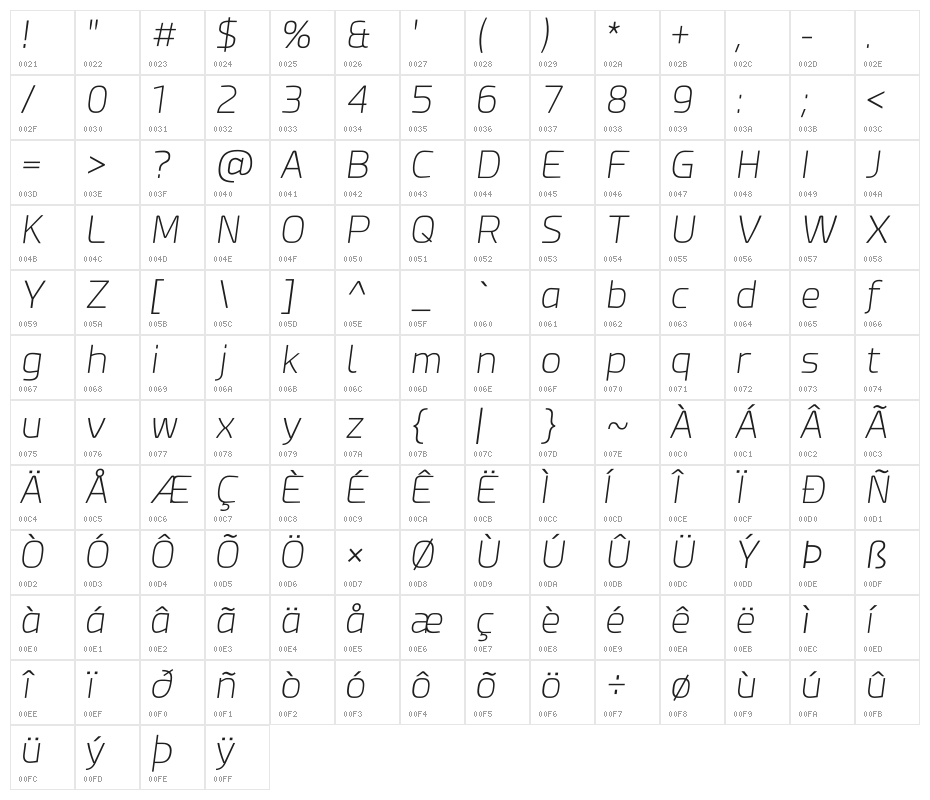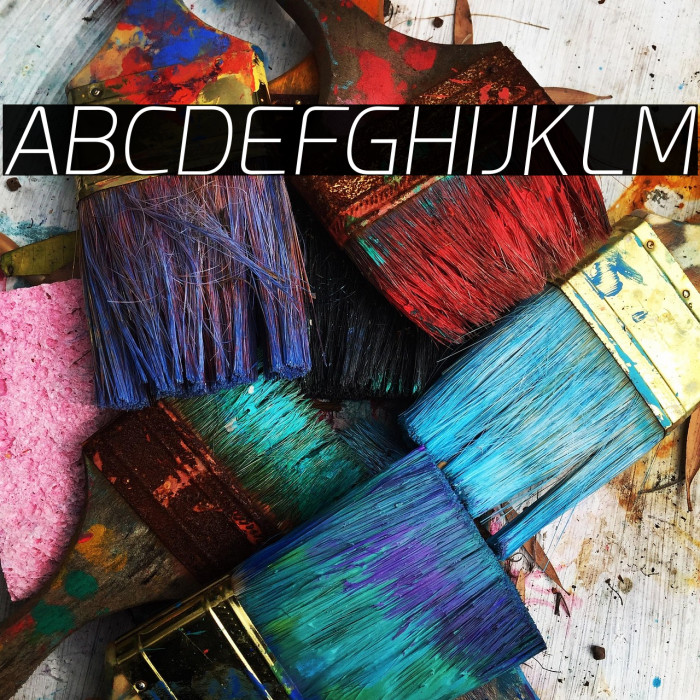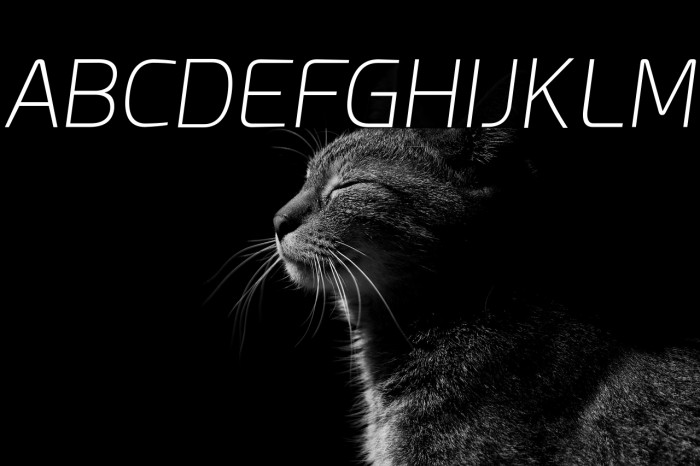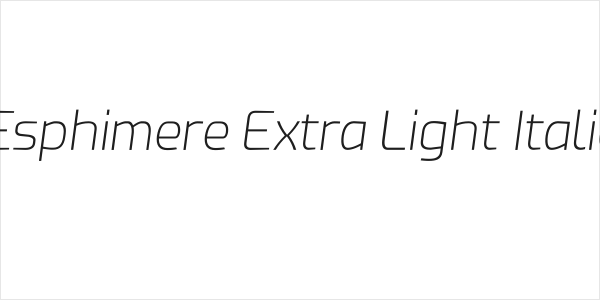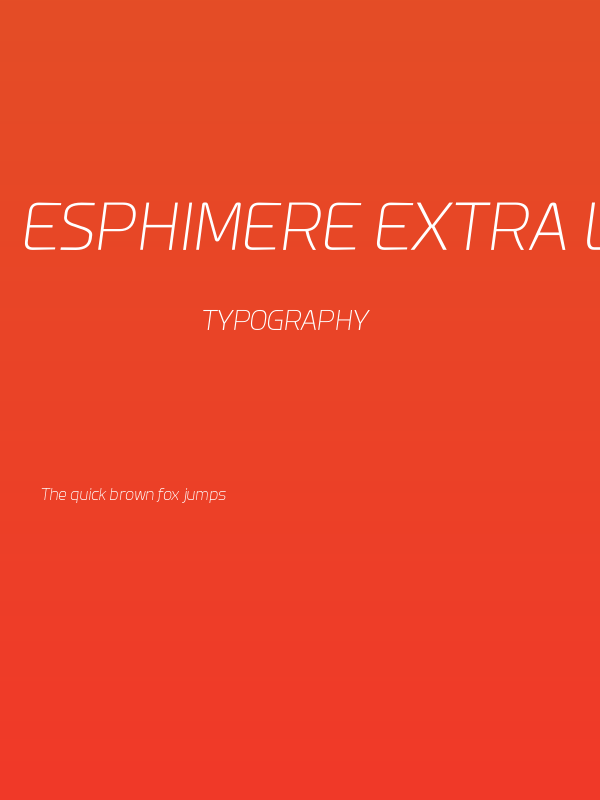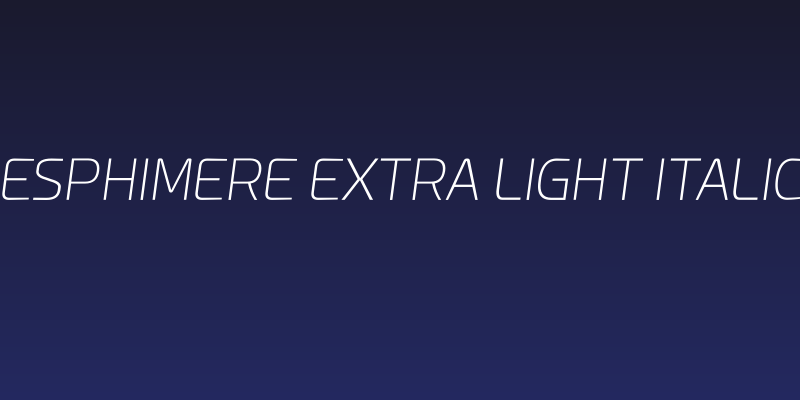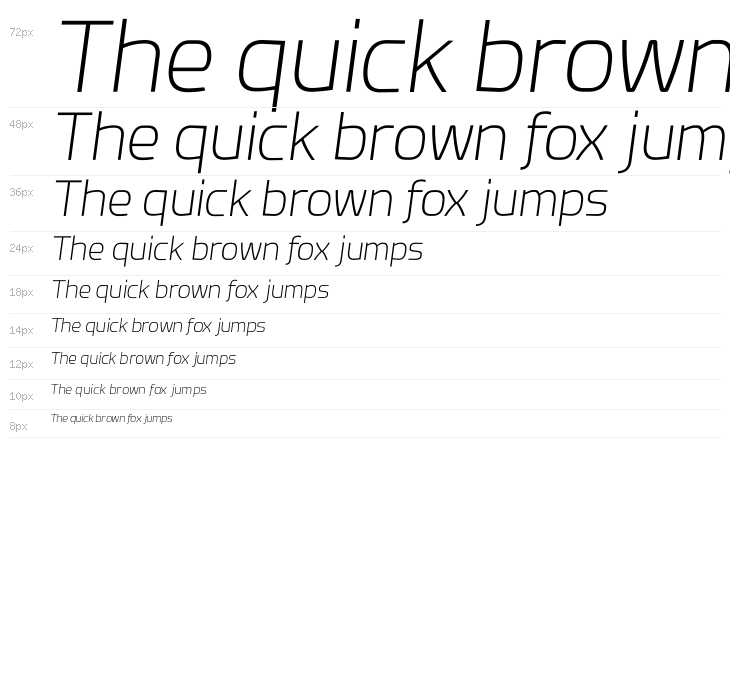
Esphimere Extra Light Italic Font
Esphimere Extra Light Italic Description
This font features a sleek, modern design with a subtle italic slant, giving it a dynamic and forward-moving appearance. The characters are crafted with an extra-light weight, providing an airy and elegant feel. The sans-serif style ensures a clean and minimalist look, making it versatile for various design applications. The letterforms are slightly condensed, enhancing readability while maintaining a sophisticated aesthetic. The uniform stroke width and low contrast contribute to its contemporary appeal, making it suitable for both digital and print media. The font's overall style is modern and professional, ideal for projects that require a touch of elegance and clarity.